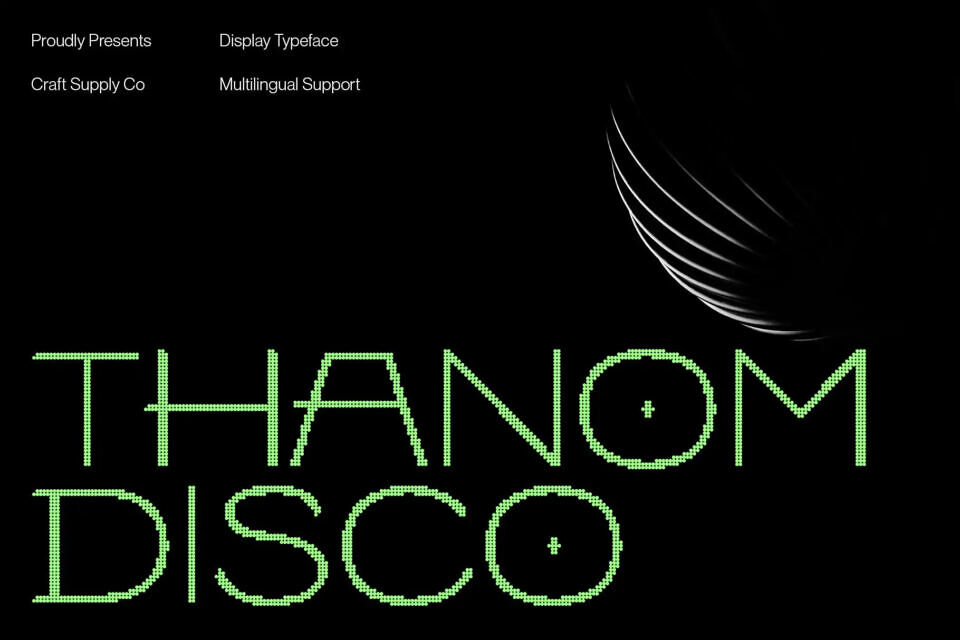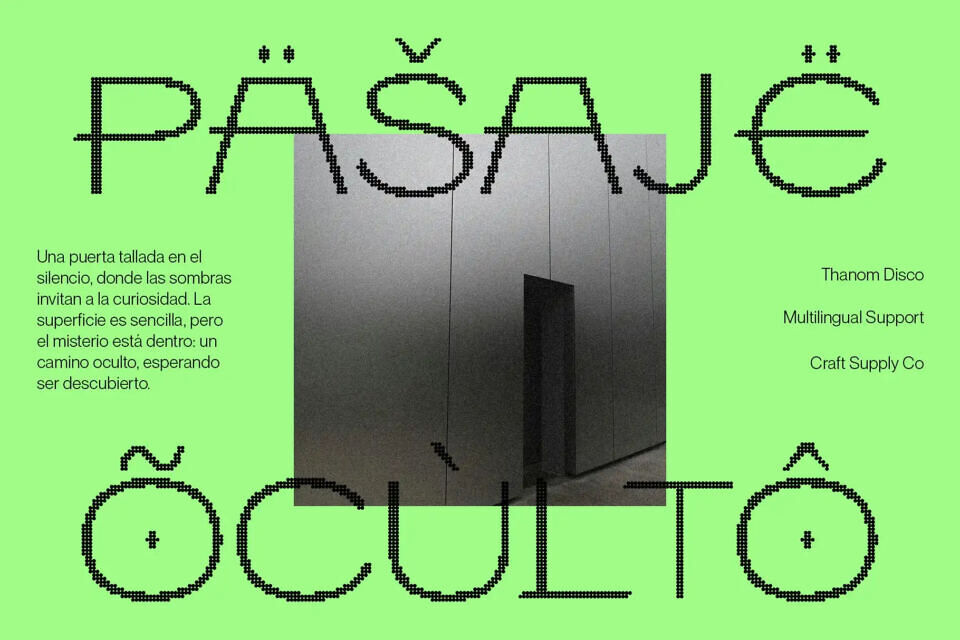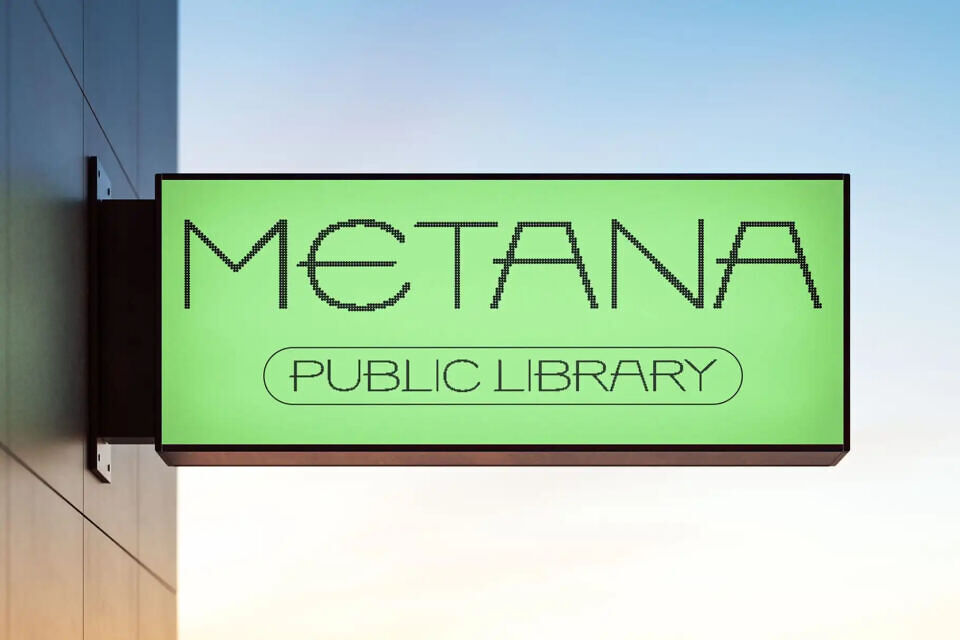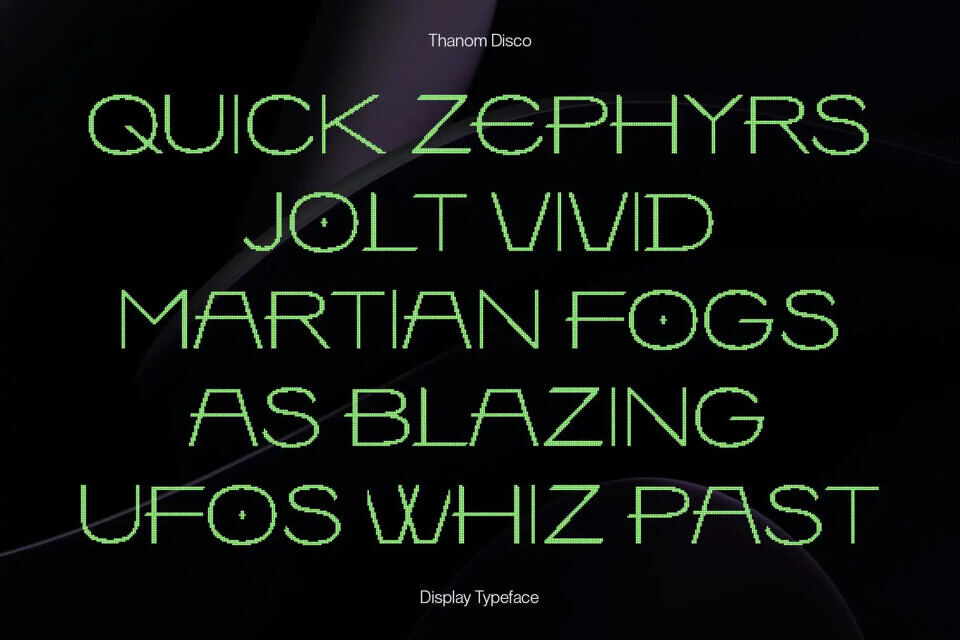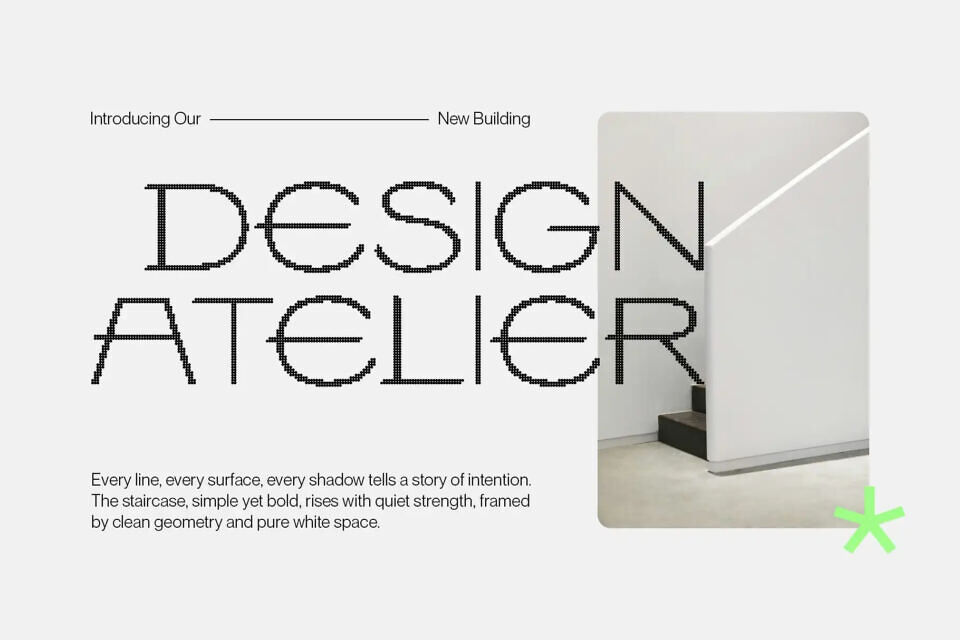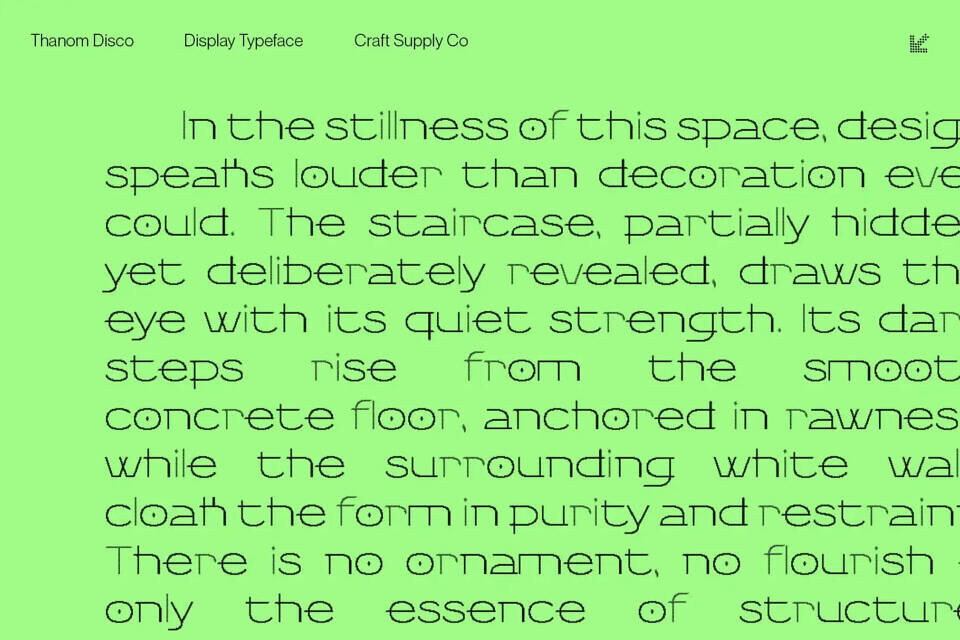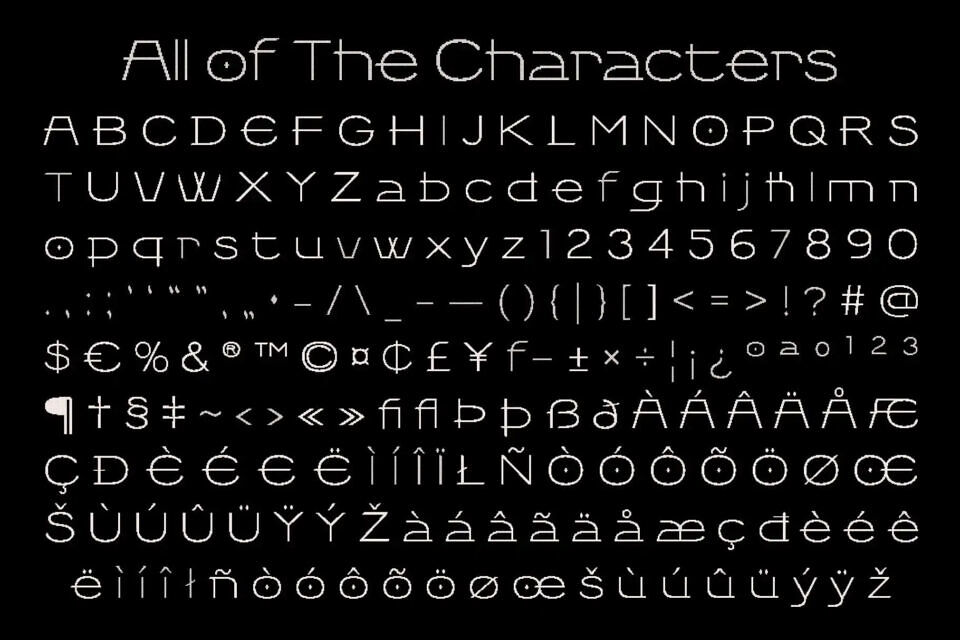
Thanom Disco Font
Thanom Disco is a minimalist sans serif font infused with futuristic energy and subtle disco flair. Its thin proportions, clean lines, and refined spacing ensure clarity while radiating sleek modernity
. The disco-inspired shimmer detail adds rhythm and liveliness, giving each letter a dynamic edge. Perfect for logos, posters, and high-impact branding, Thanom Disco adapts seamlessly to digital and print projects. Balancing precision with creative spark, this contemporary typeface delivers bold, fresh, and unforgettable designs with modern style and futuristic appeal.